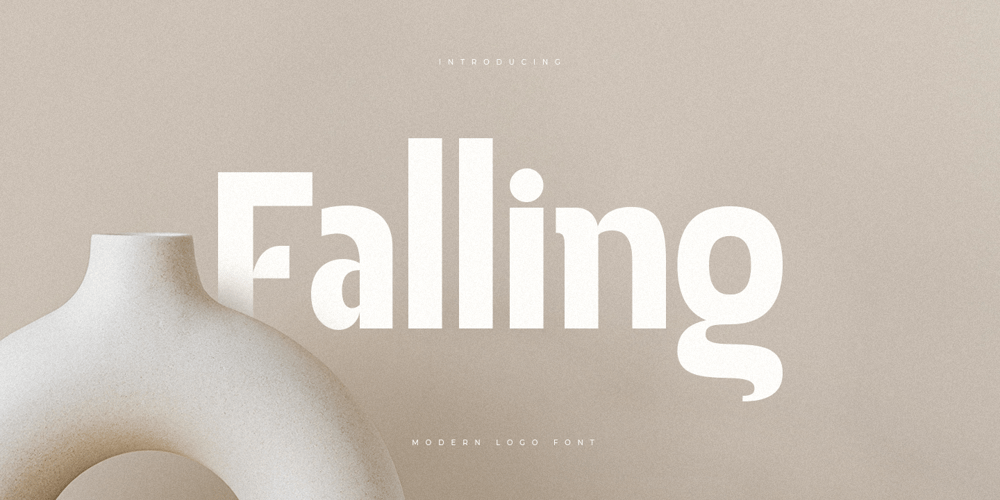
Falling Style Font Family was designed by Zamroni Hamzah and published by Sensatype Studio. Falling Style contains 2 styles and family package options. A Modern font that we created special for unique branding needs, with extra ligatures in unique shape will be ready to add value of your brand. It so nice to leverage designer or product owner that need solutions to make their design look more unique and modern. And specially for this font, We prepared any ligatures characters to help you create unlimited variations with outline font style for your creative needs.Falling Modern Logo Font ready with: Regular and Outline Versions Preview as a inspirations that you can do with Falling font Ready with Lowercase and Uppercase characters Wish you enjoy our font. ๐